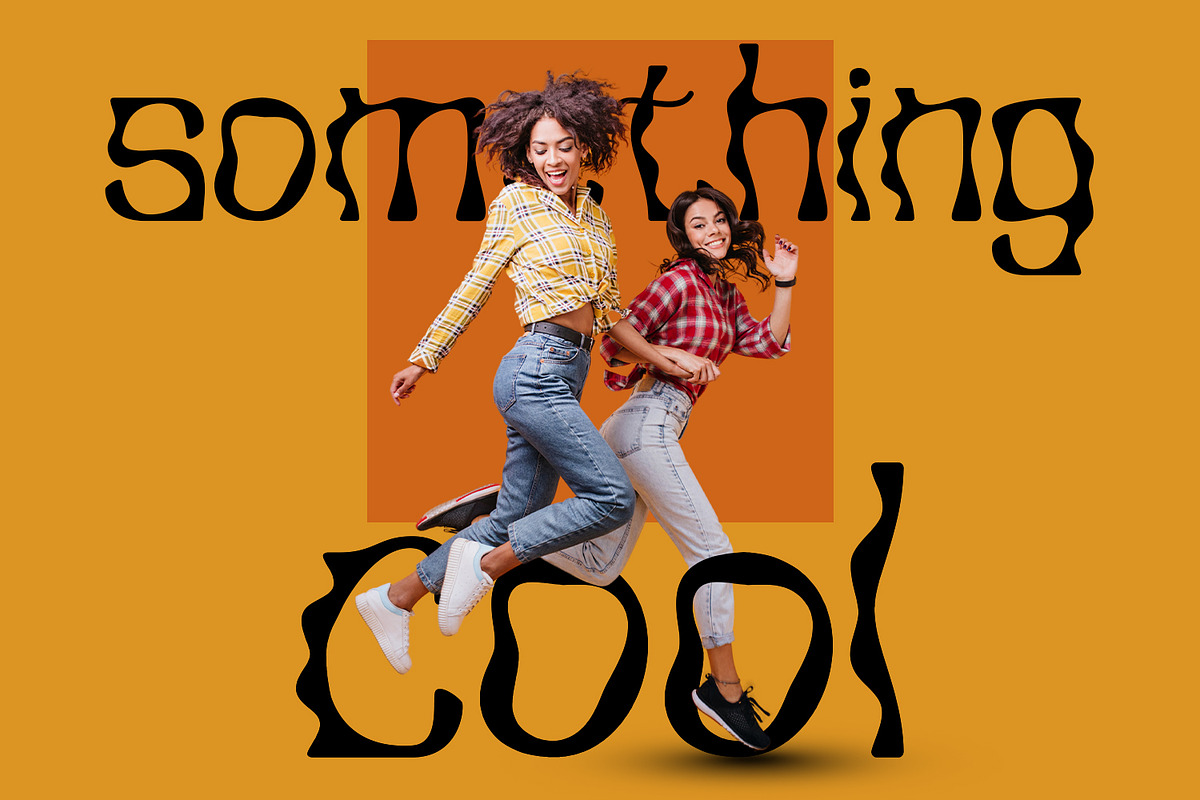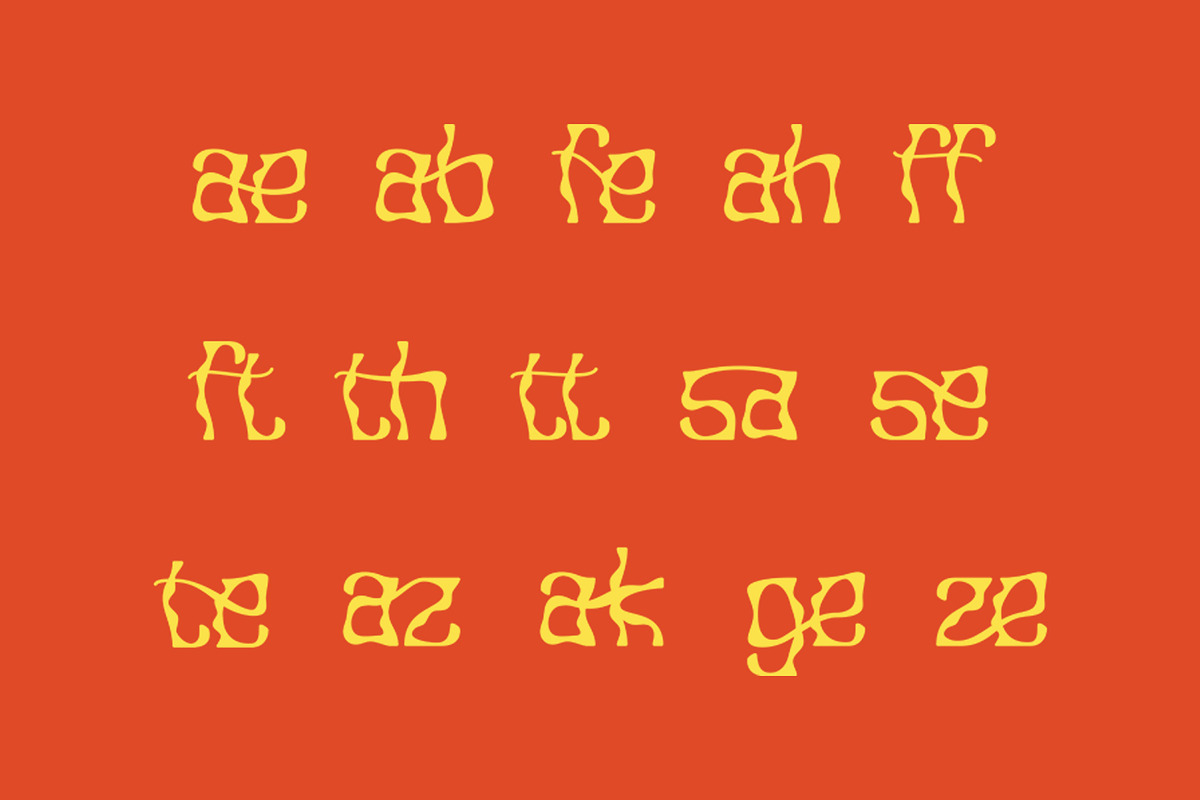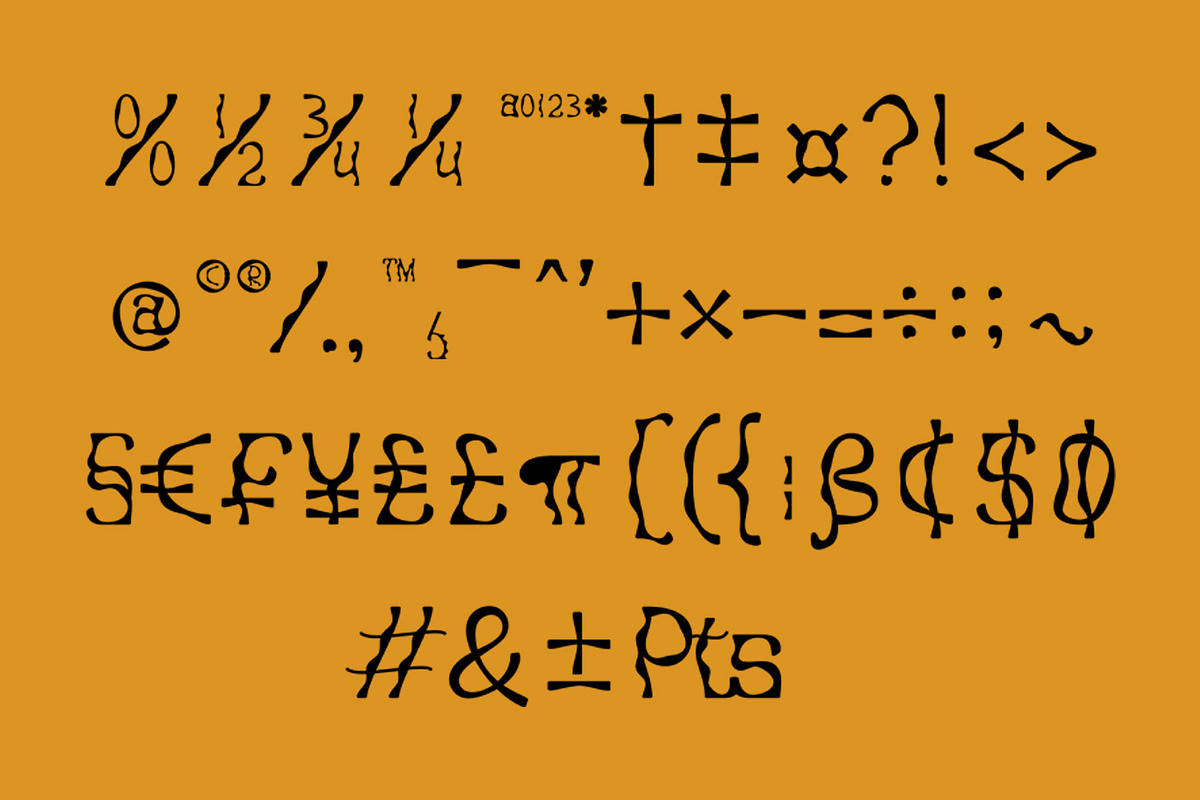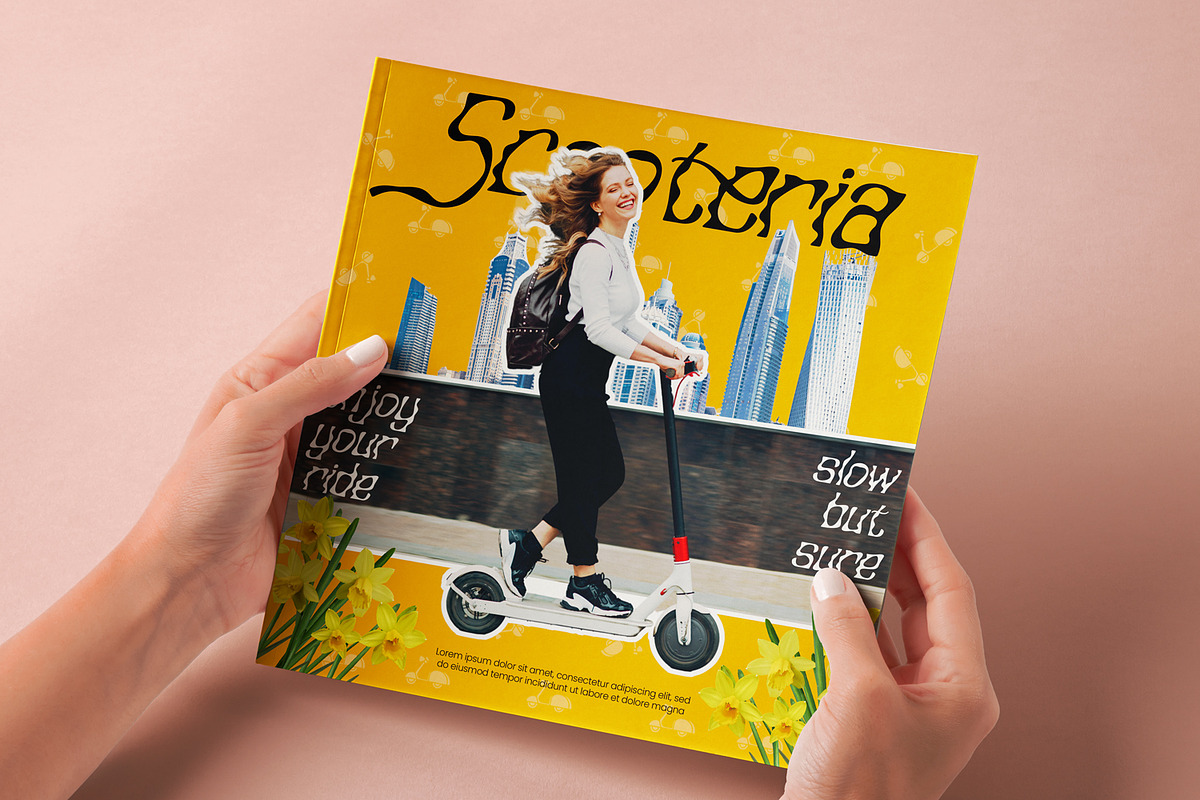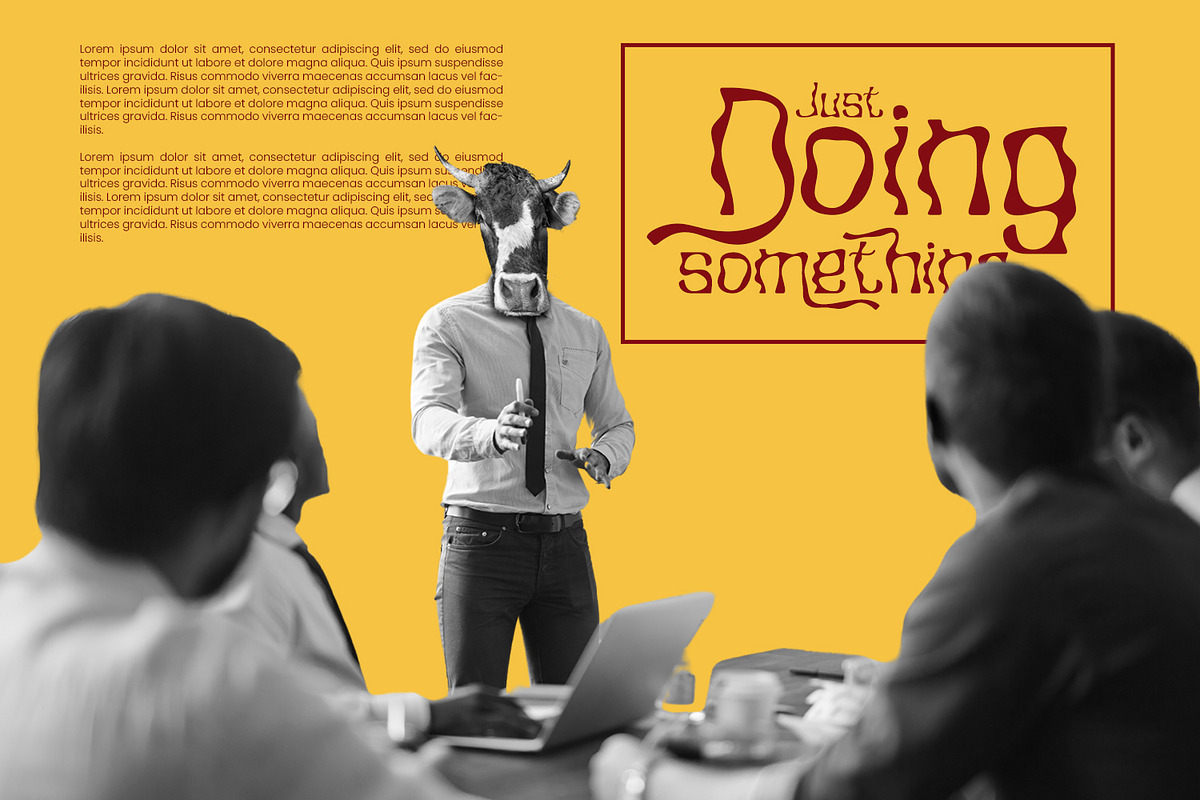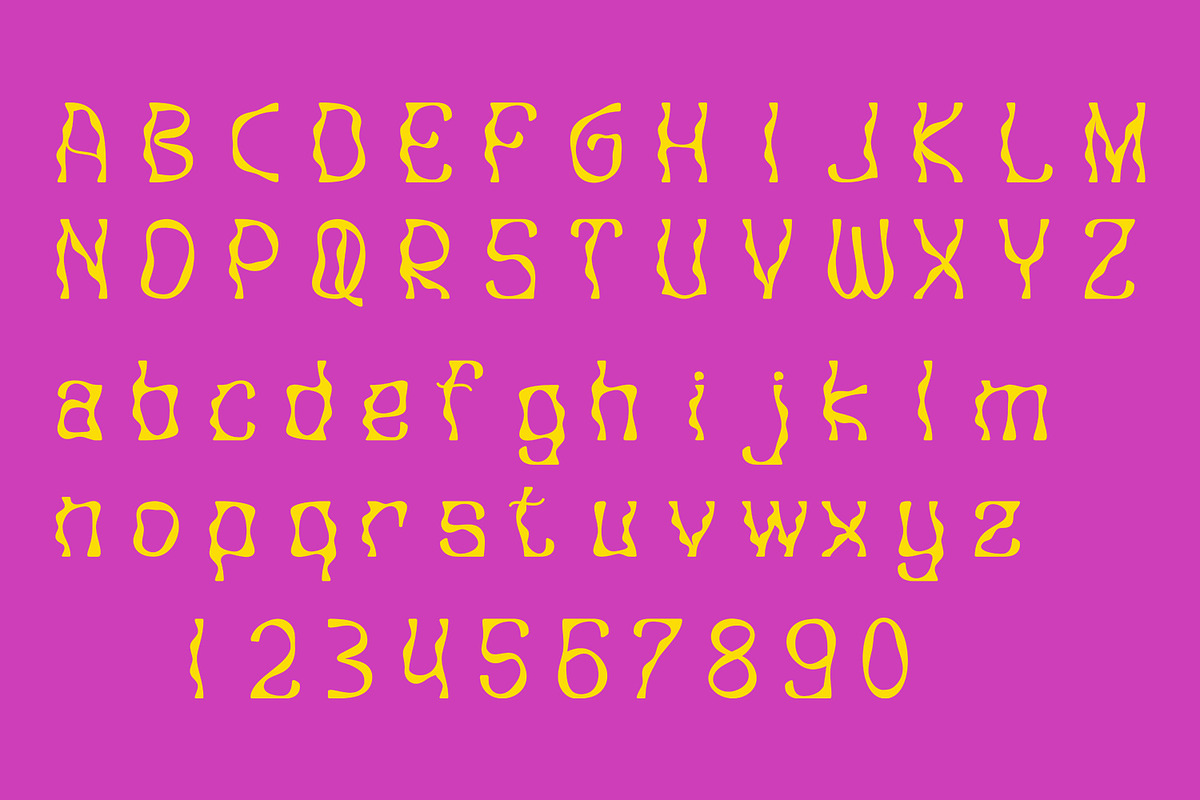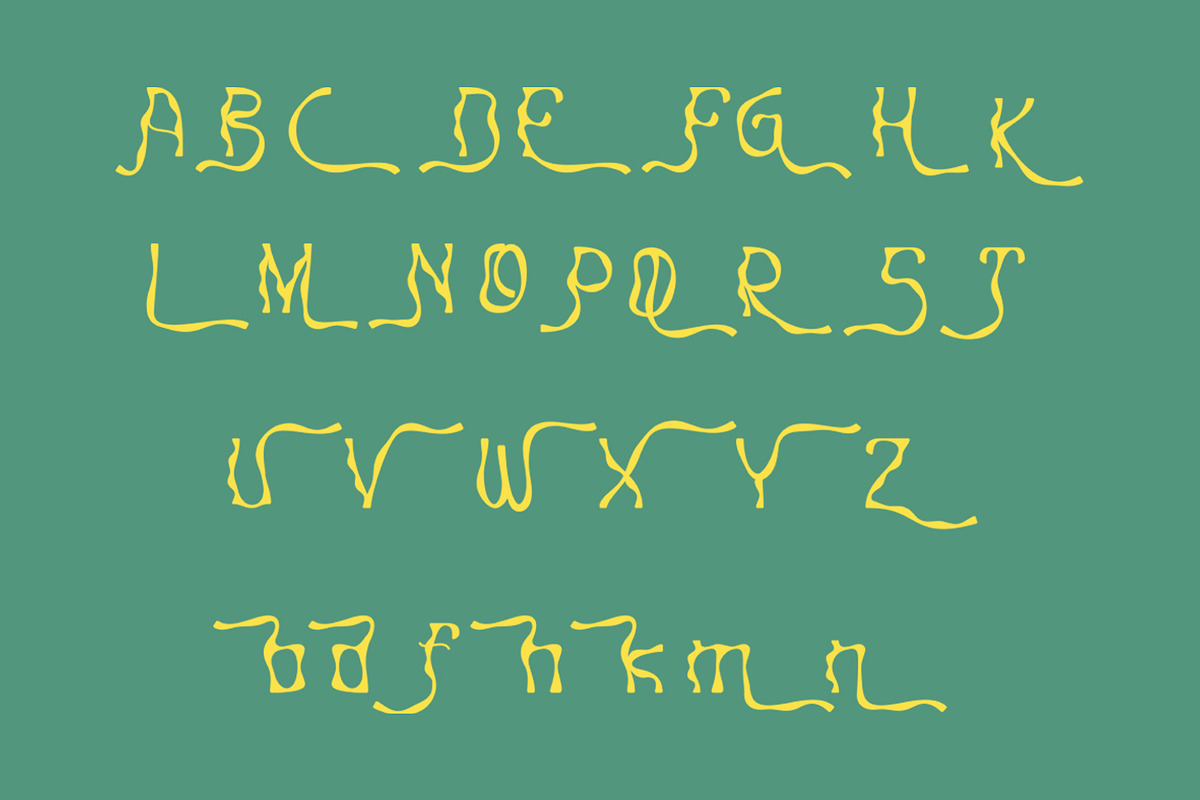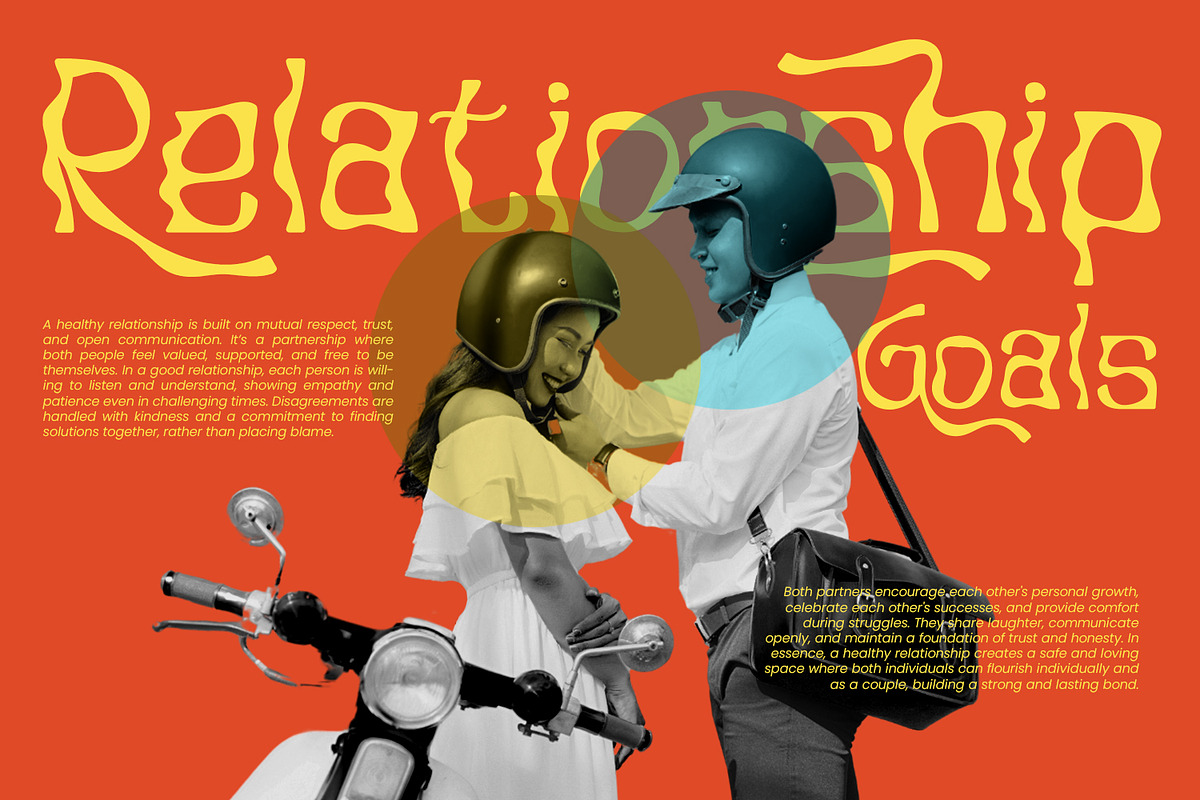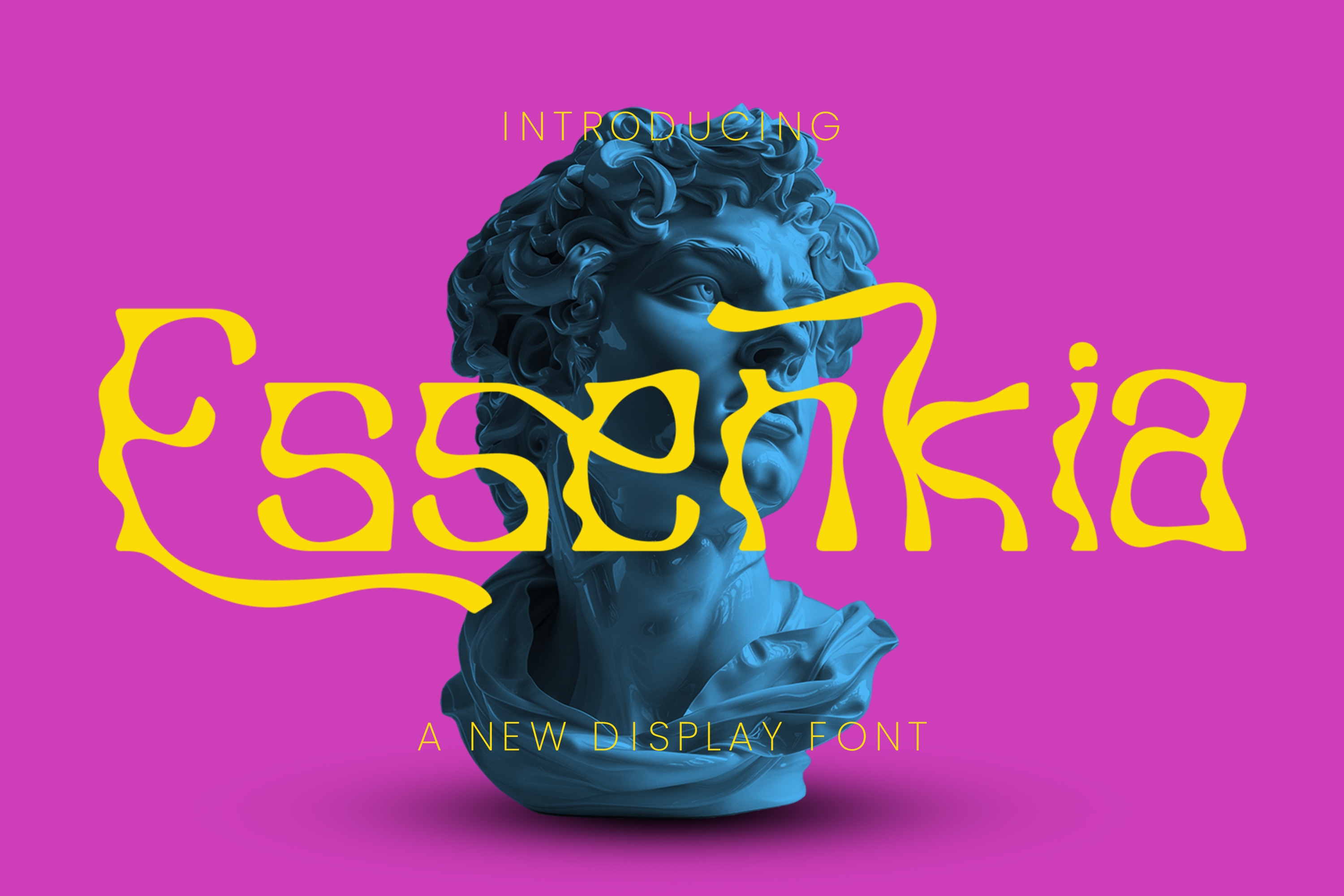
Essenkia - Curvy Display Font
Essenkia - Curvy Display Sans Serif Font, from Favowrite Studios, is a premium Font, perfect for any project that requires a distinctive, and premium feel.